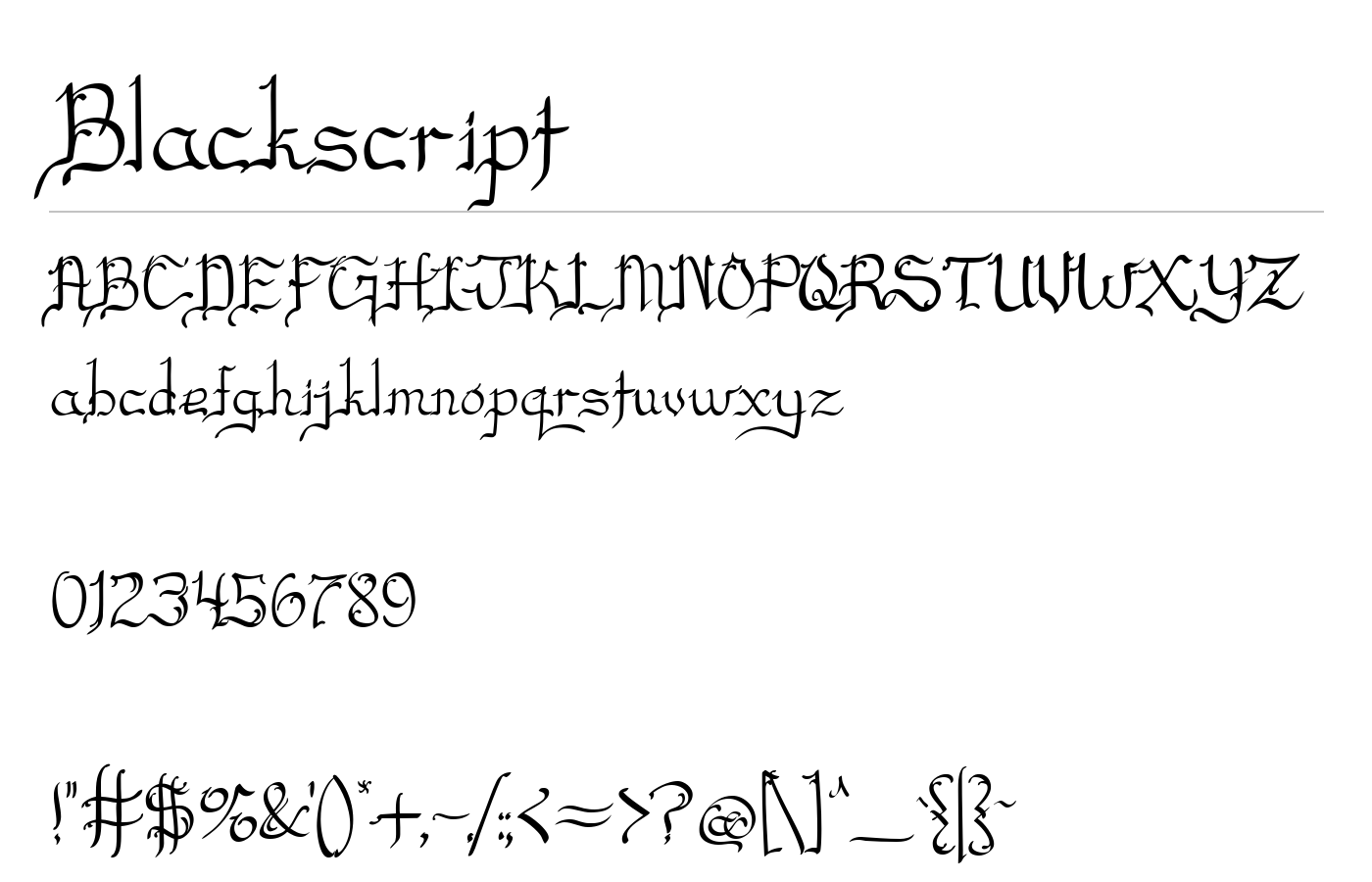
Blackscript is a decorative blackletter-style font that combines sharp, angular strokes with delicate, calligraphic details, creating a medieval and gothic atmosphere. Its intricate letterforms and high contrast between thick and thin lines make it perfect for vintage or fantasy-themed designs, such as logos, invitations, and posters, where a dramatic and historical feel is desired. This font works best in display use, adding an elegant and mysterious flair to any project.
About Blackscript Font